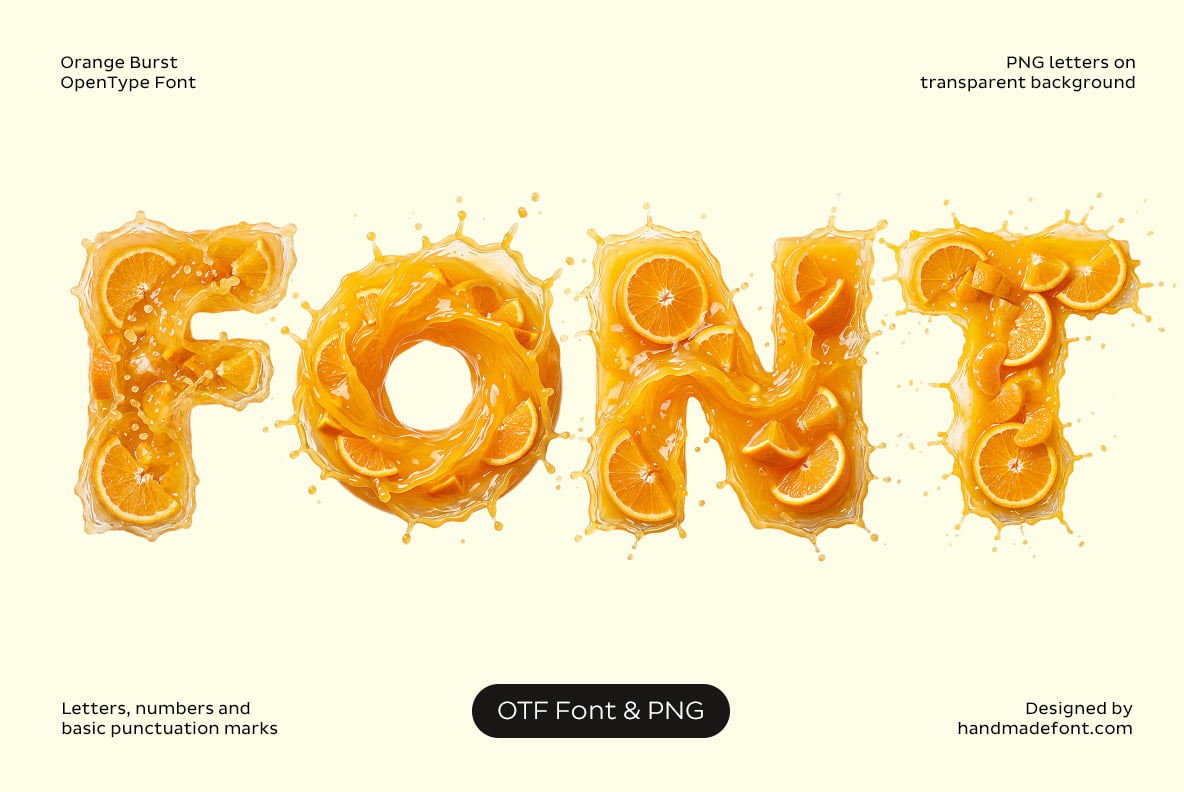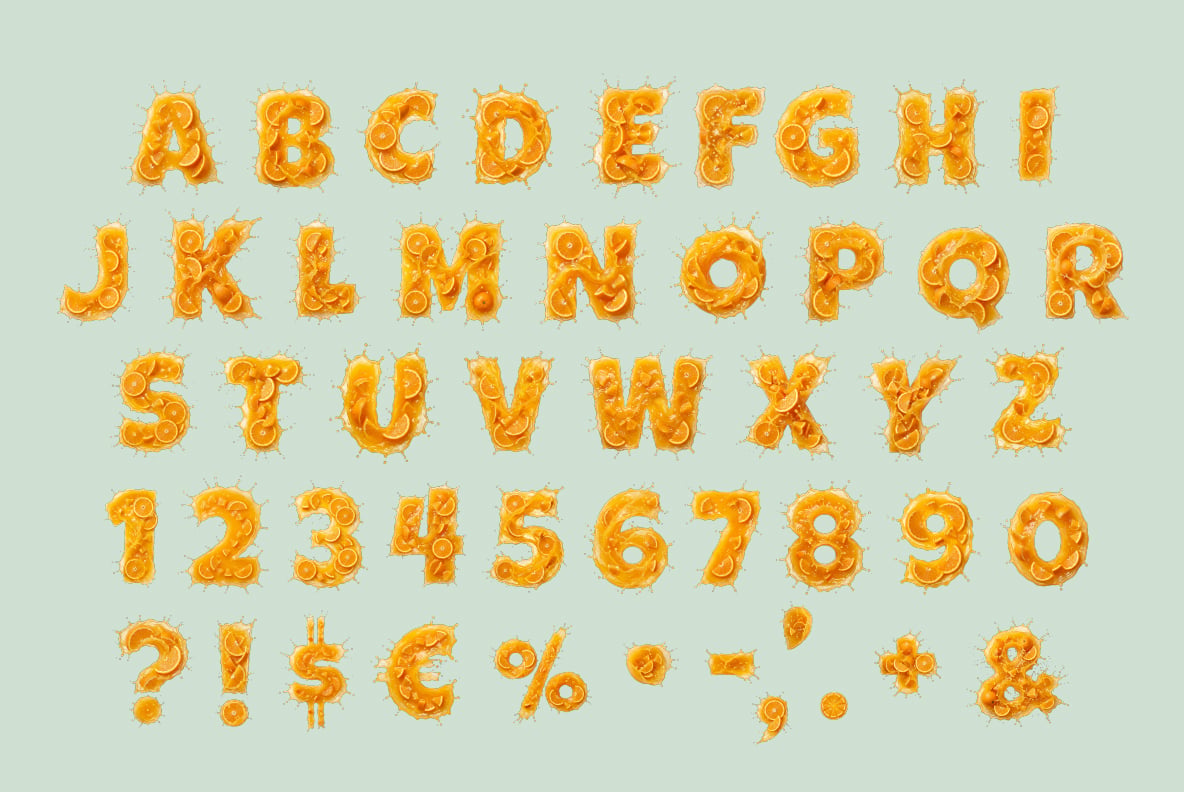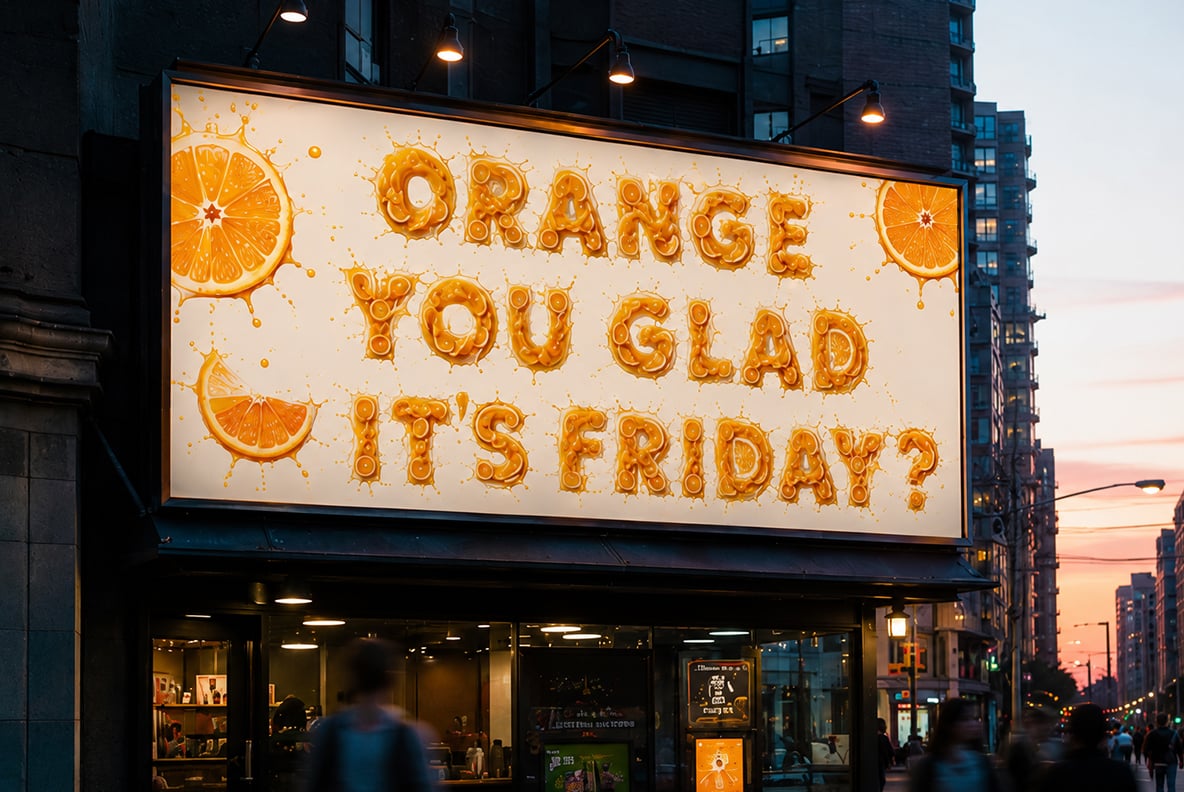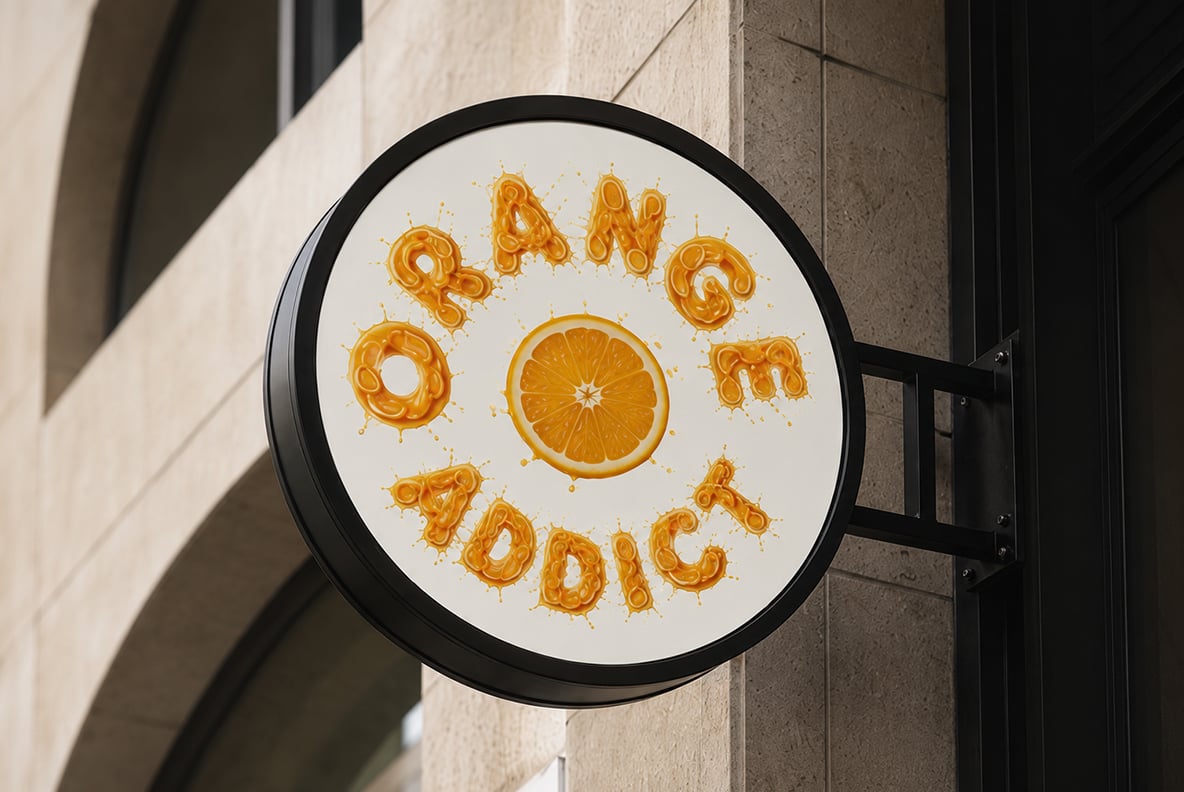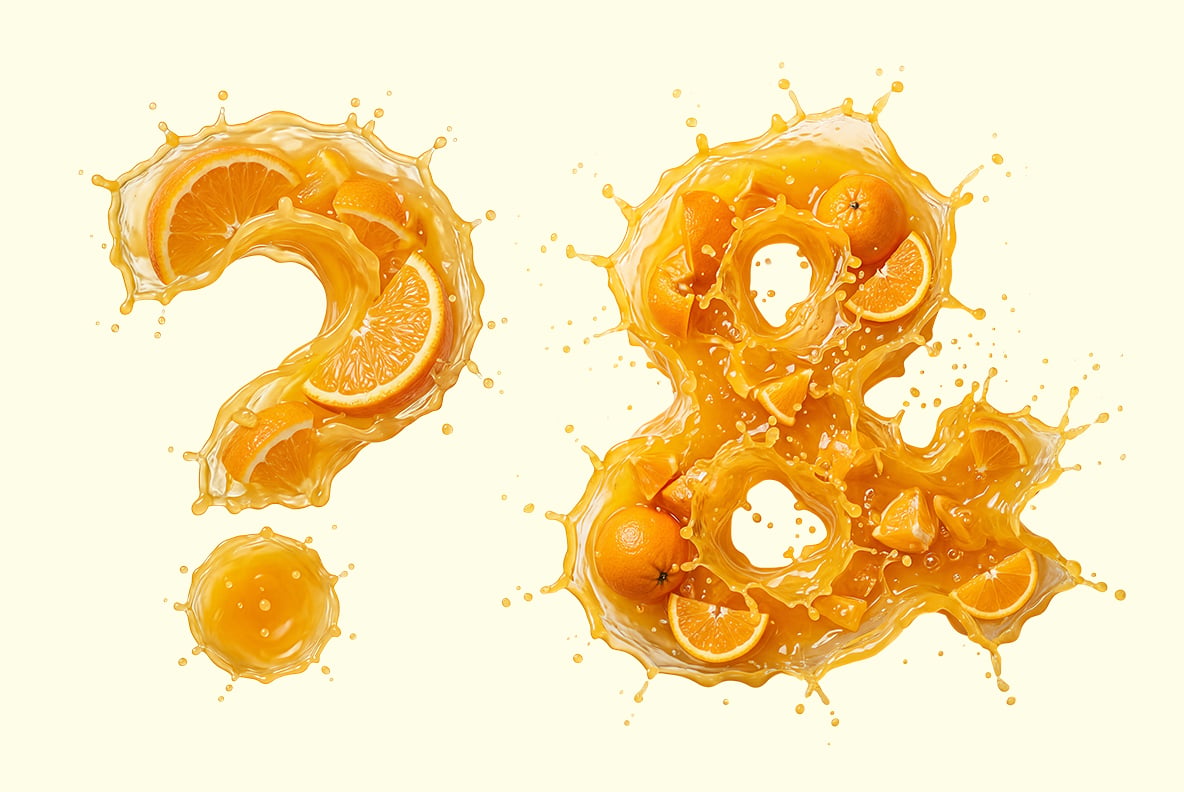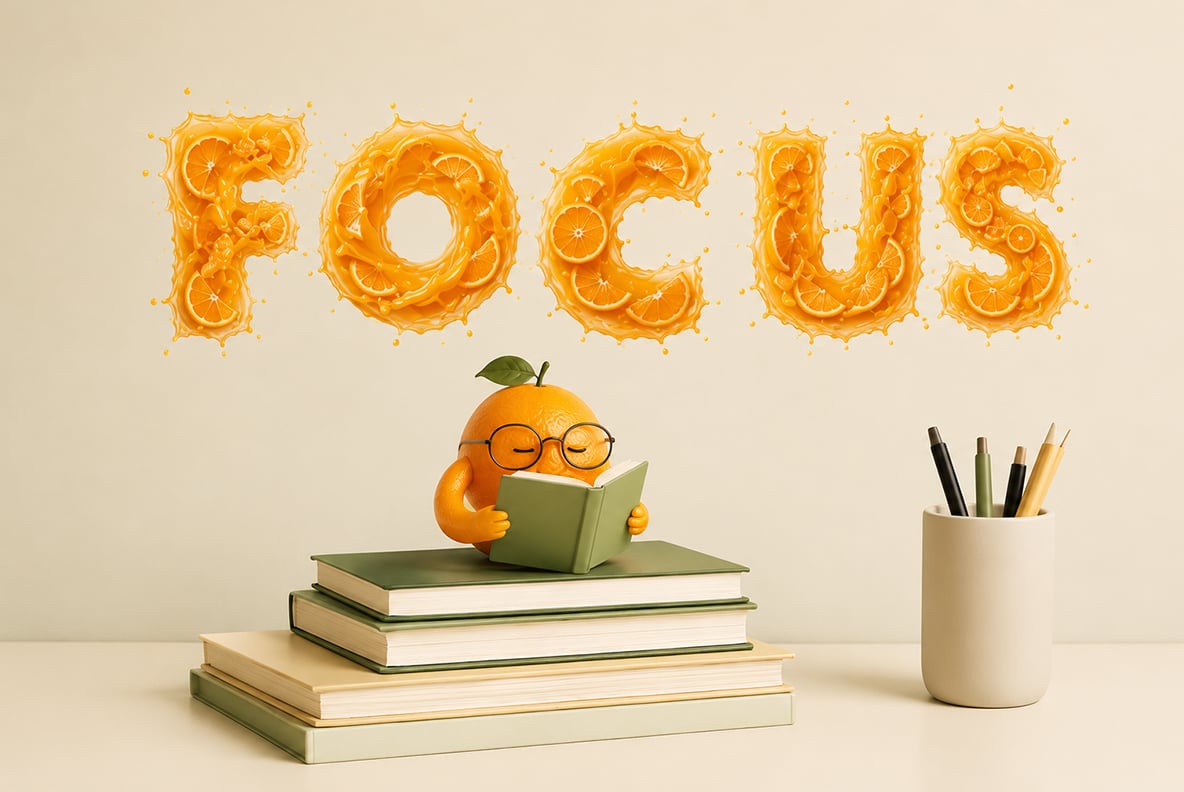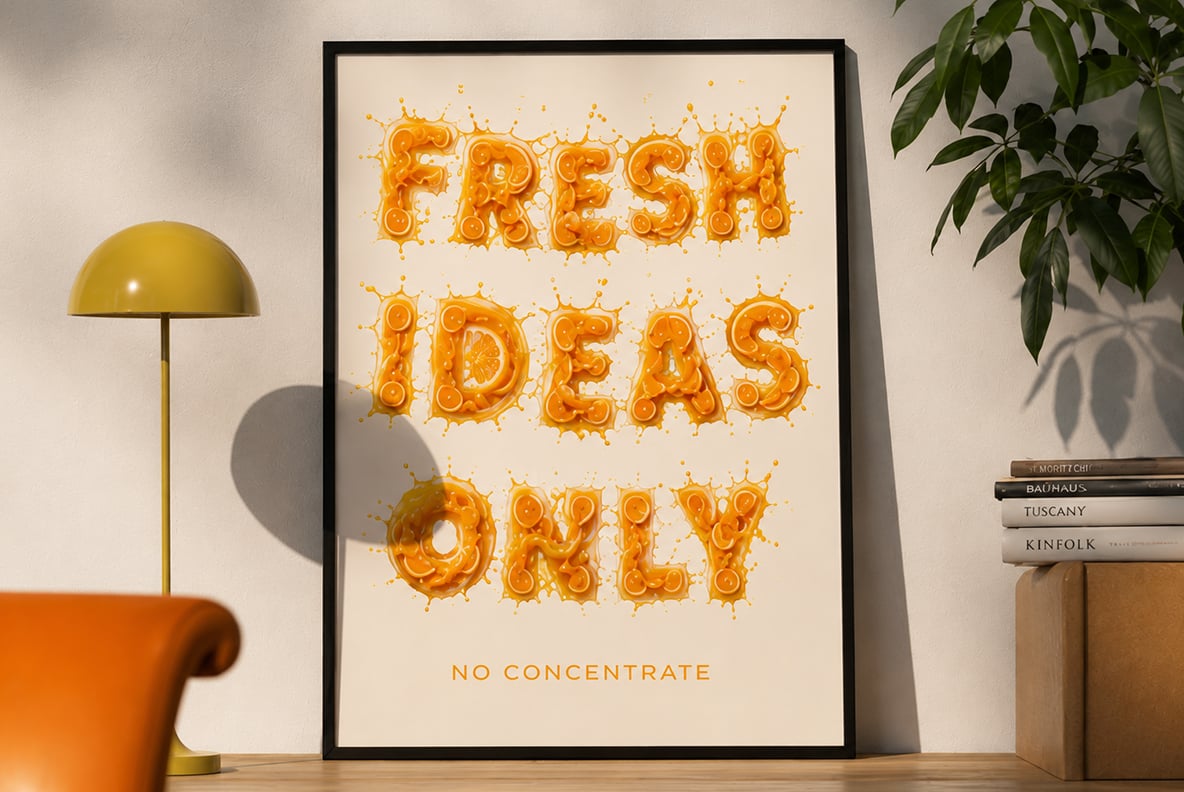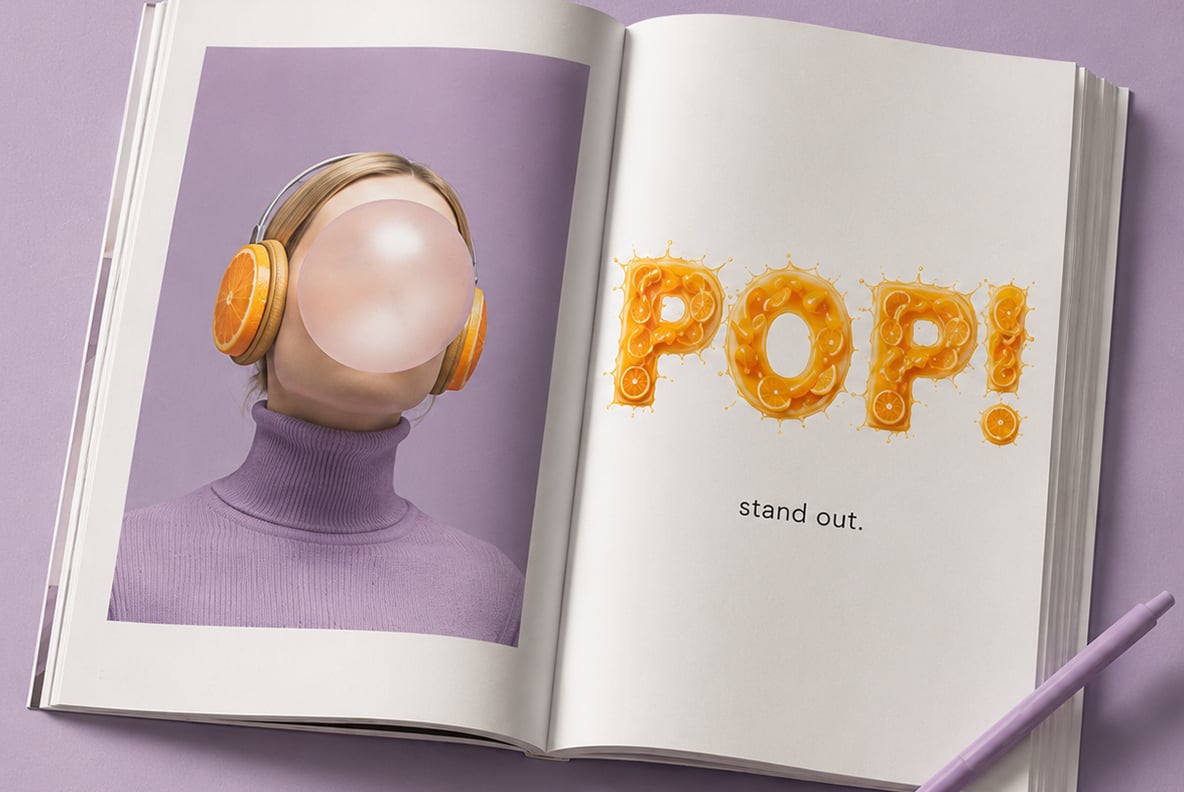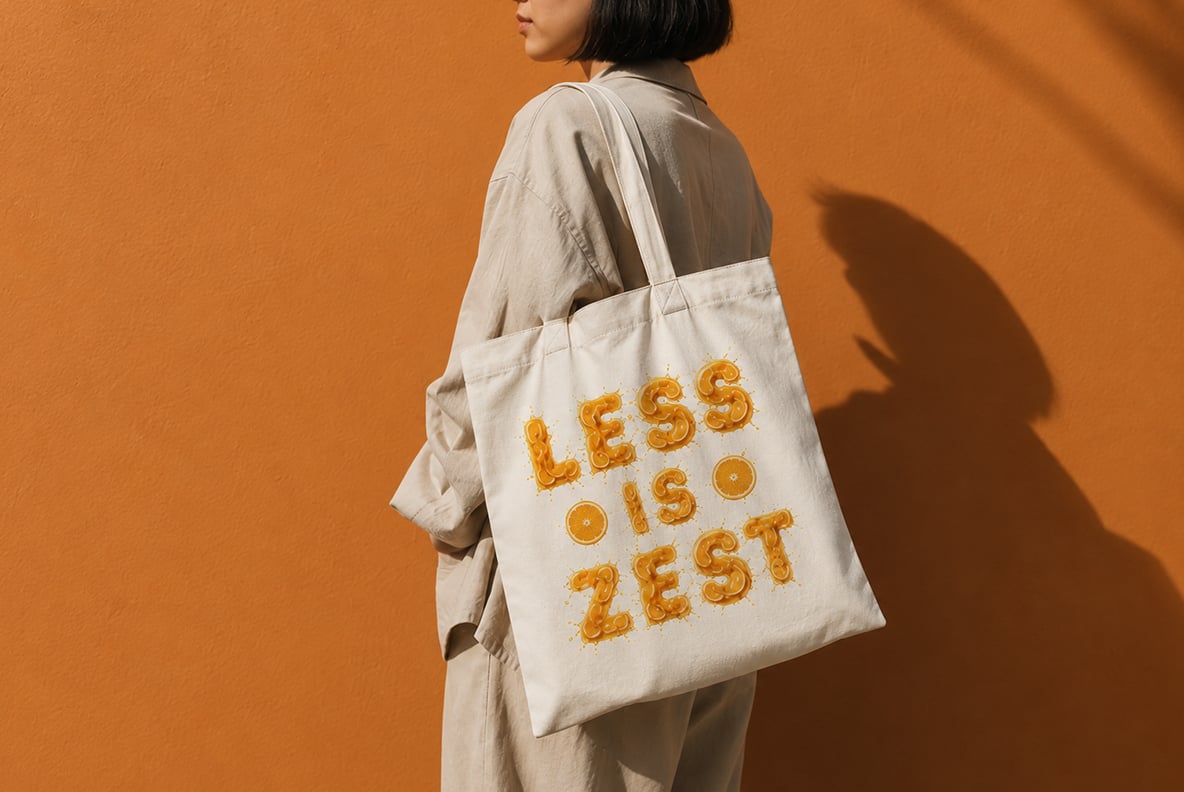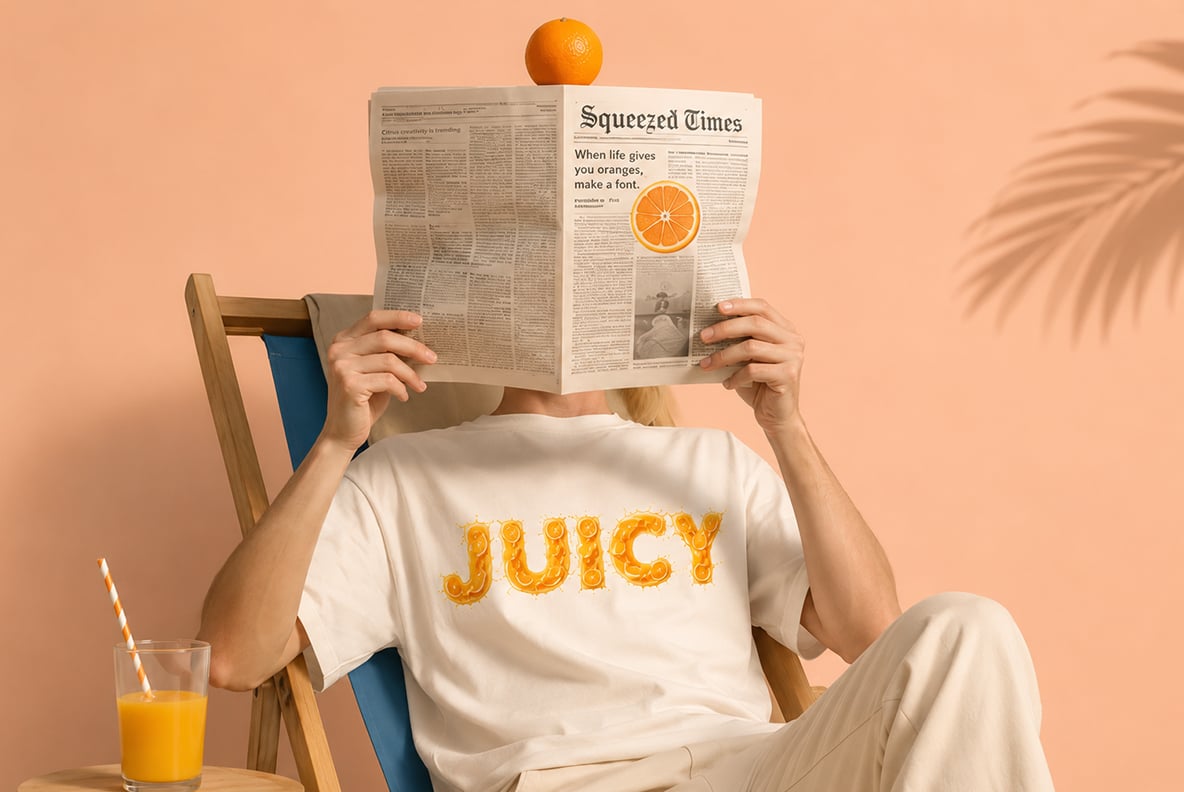
Orange Burst Font
Orange Burst Font is a juicy, high-energy display typeface designed to make every word feel freshly squeezed. Crafted from vibrant orange slices, glossy citrus juice, and dynamic splash effects, this playful OTF font instantly adds flavor, fun, and visual impact to branding, packaging, social media graphics, posters, invitations, summer campaigns, and food-related projects. Every character is packed with rich details, realistic textures, and refreshing citrus vibes. The package includes the complete OpenType font file plus individual PNG letters, numbers, and punctuation marks on transparent backgrounds, giving you maximum flexibility for custom compositions, logos, merchandise, advertising, and creative design projects.